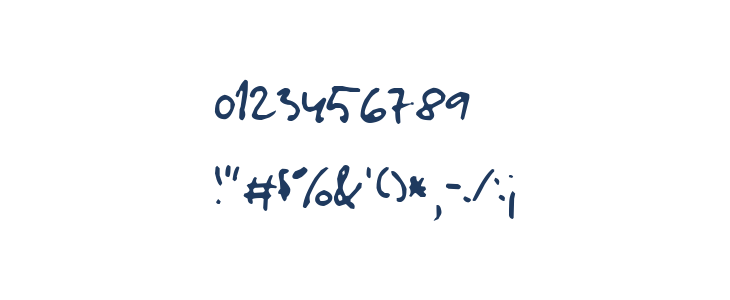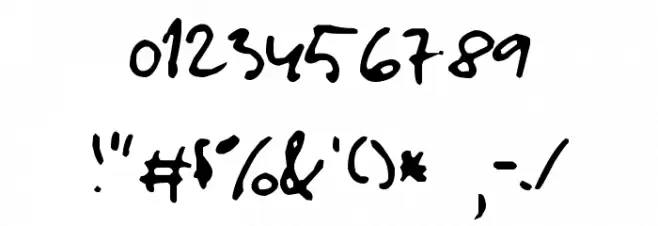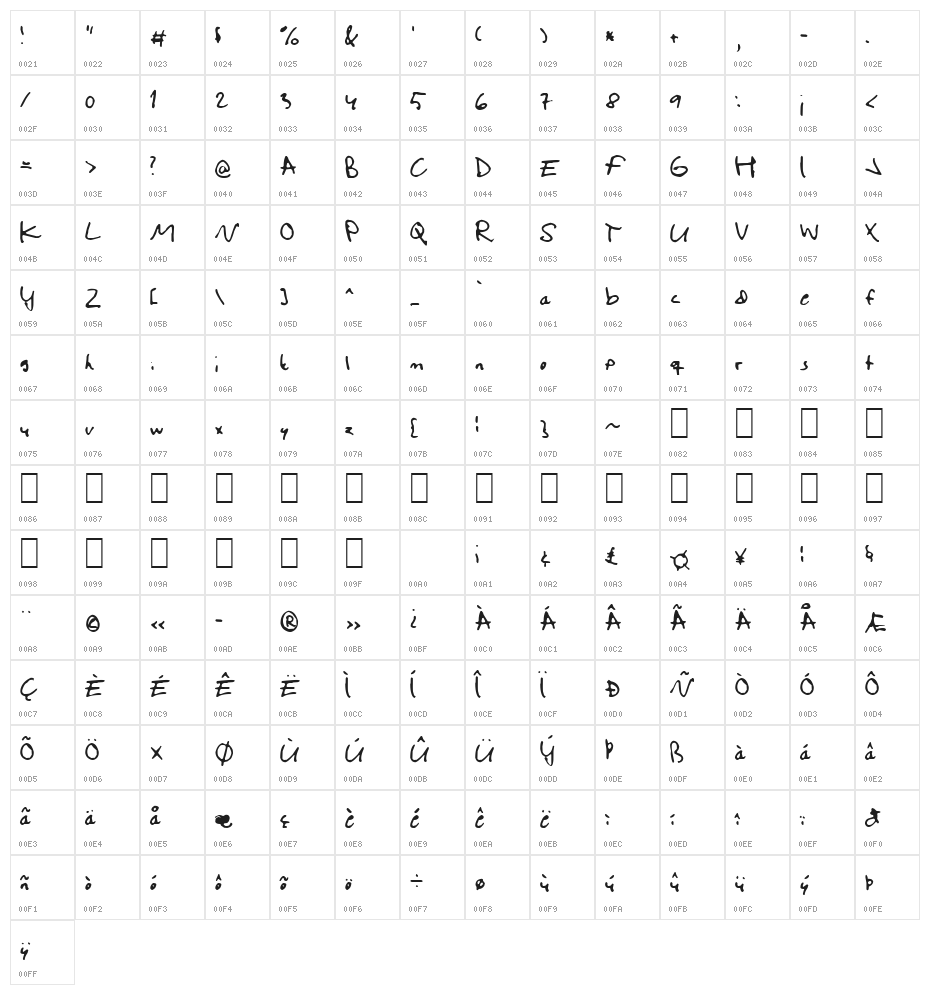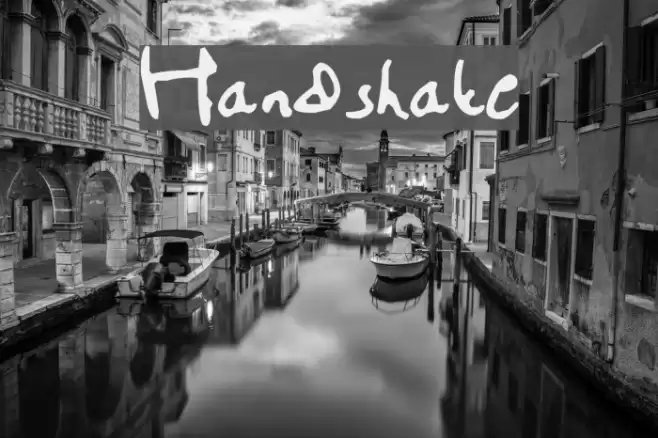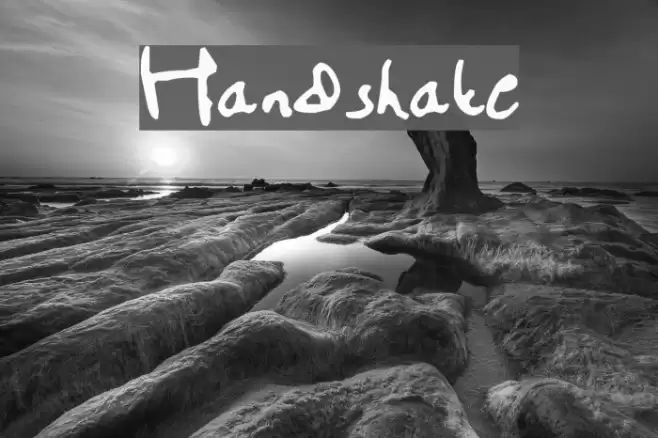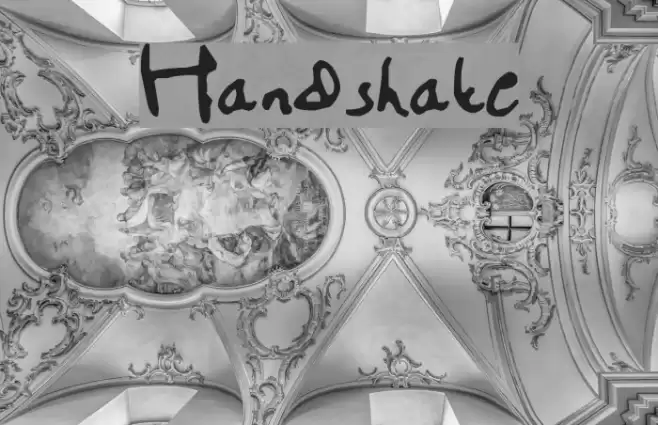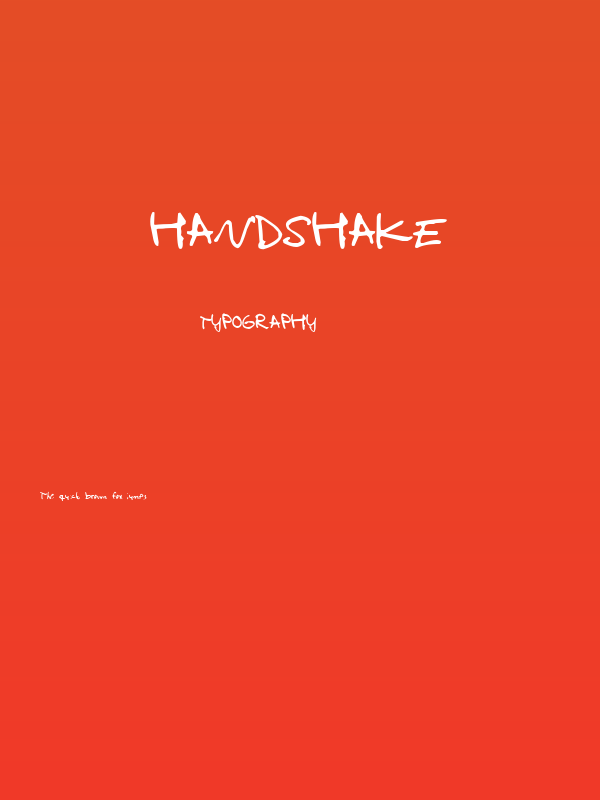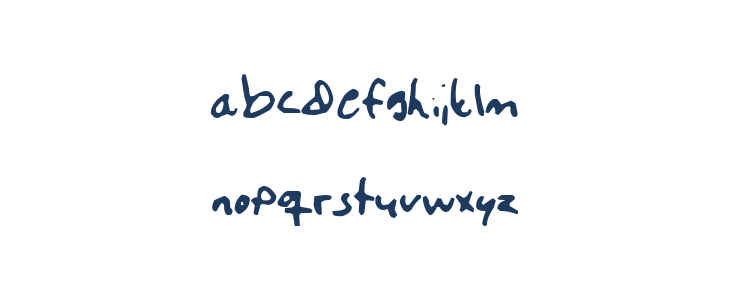
Handshake Font
Handshake Description
This font exhibits a casual, handwritten style with a playful and informal appearance. The characters are slightly irregular, mimicking the natural flow of handwriting. The strokes are uneven, adding to the organic feel of the font. The uppercase letters are bold and prominent, while the lowercase letters maintain a consistent flow. Numbers and special characters follow the same handwritten aesthetic, ensuring a cohesive look across all elements. This font's charm lies in its imperfections, making it ideal for projects that require a personal touch.
Overall StyleCasual
Use CaseLogos, Headlines, Informal Text
Proposed ProjectsIdeal for greeting cards, personal invitations, casual branding, and social media graphics.